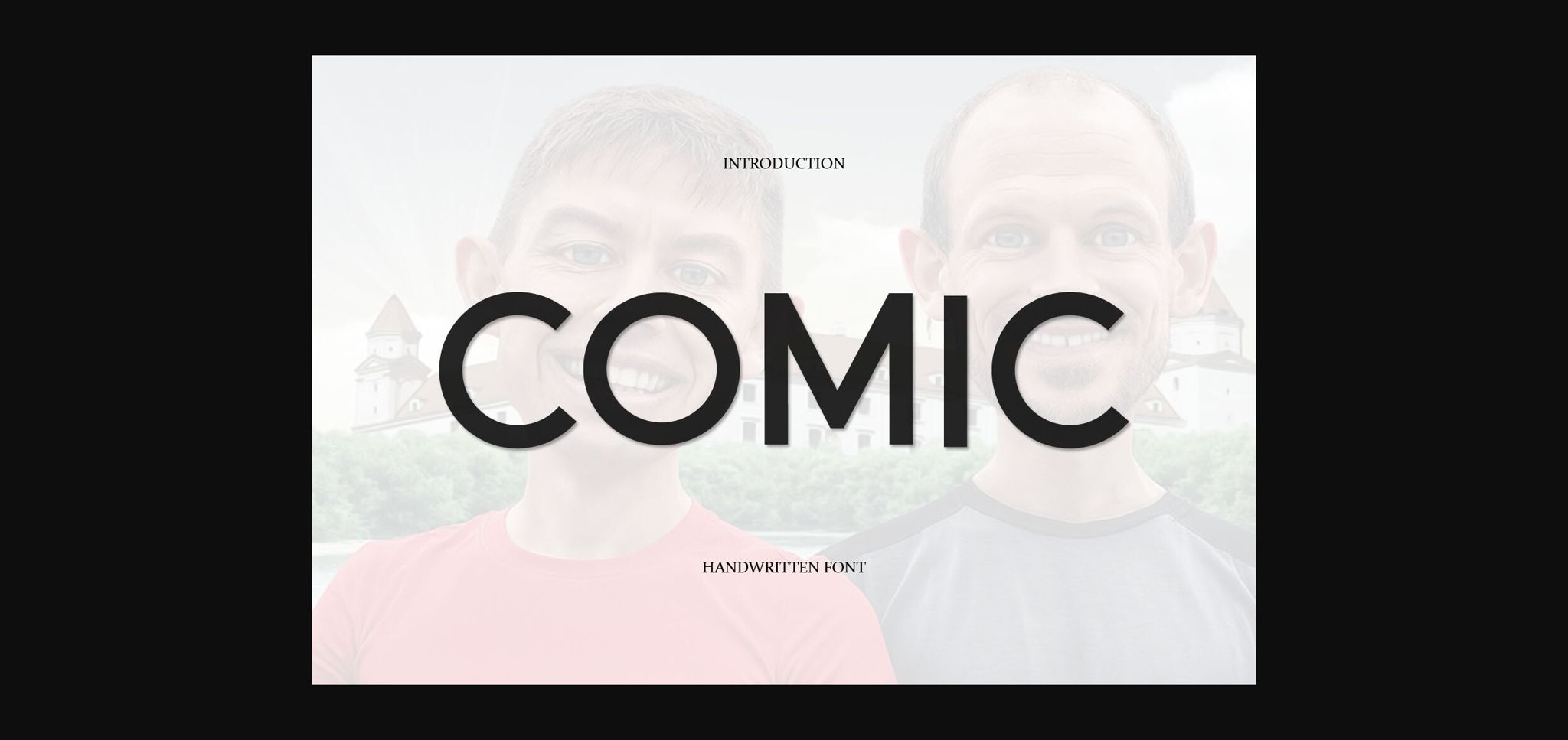
About Comic Font
Comic is a straightforward and tidy sans-serif font that embodies simplicity and clarity. Its clean lines and balanced proportions make it perfect for various design applications, from body text in publications to headers on websites. Comic maintains readability while offering a modern and uncluttered aesthetic for your projects.